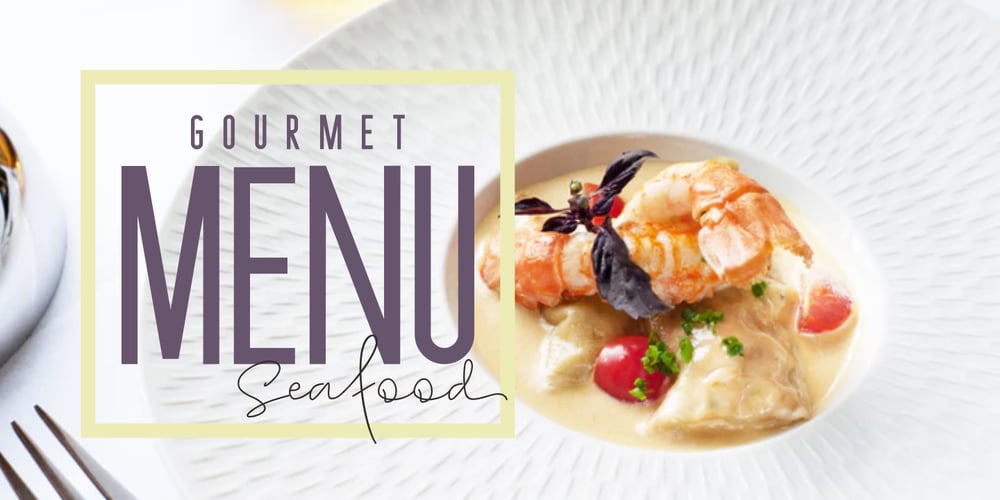
Delegation Font Family was designed by Symon Adam Abdullah and published by Jorsecreative. Delegation contains 4 styles and family package options. Delegation fonts are very beautifully designed and combine Delegation Script and Delegation Sans. The styles are suitable to be used for media promotion especially on social media, but not less beautiful when used for magazines, brochures, branding, etc. Delegation Features: Multilangual Ligatures (Delegation Script) Alternates PUA Encoded Numerals and punctuation Programs that support this font are Adobe Photo Shop, Adobe Illustrator, Adobe Indesign, Corel Draw and Microsoft Office. Languages supported: Breton, Catalan, Czech, Danish, Estonian, French, German, Hungarian, Icelandic, Italian, Romanian, Gaelic, Slovak, Latvian, Lithuanian, Norwegian, English, Finnish, Polish, Portuguese, Slovenian, Spanish, Swedish, Turkish, Welsh. Basically, all European languages are based on latin alphabet. Thank you!